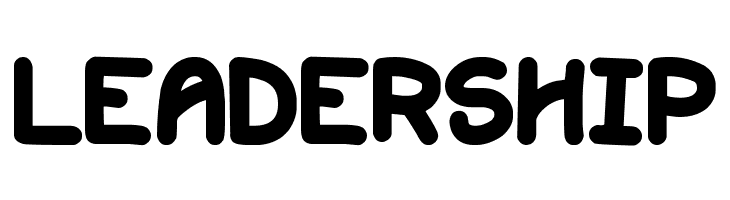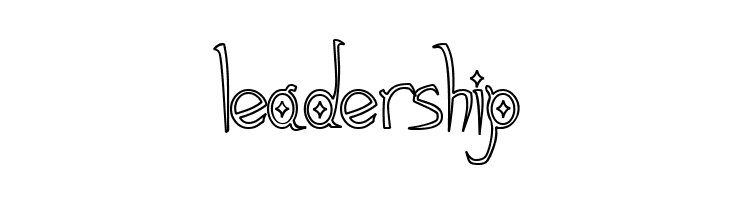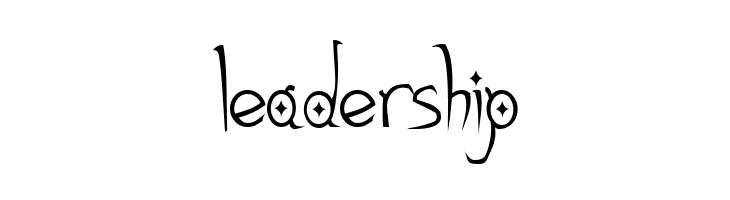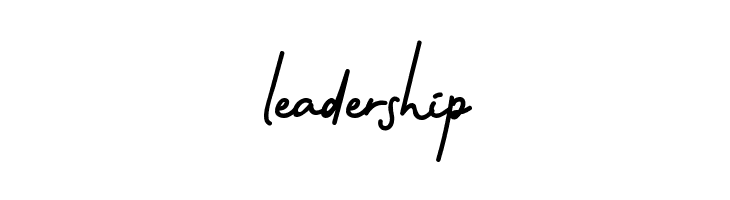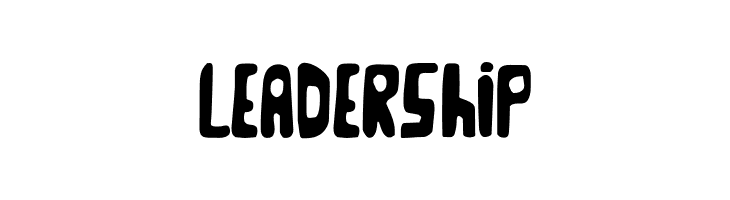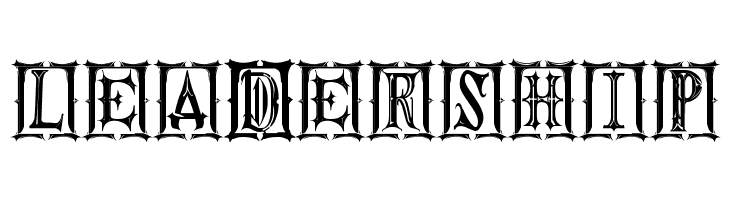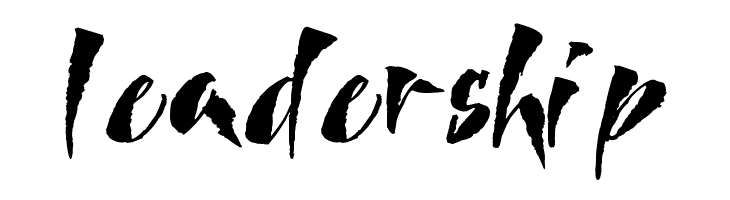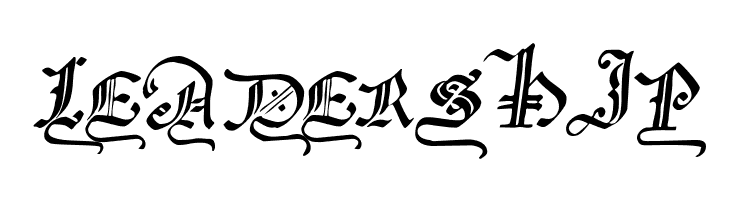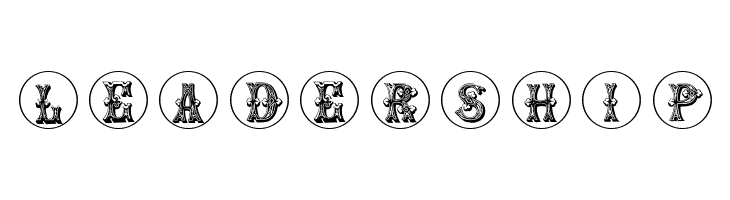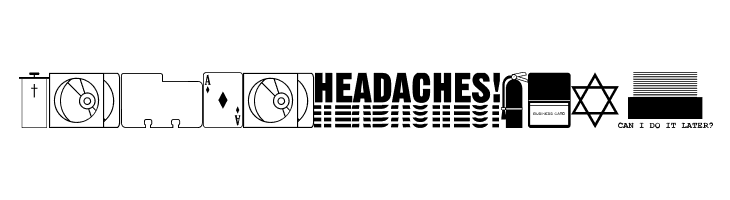
• Goodbye Crewel World NF
A decorative font with a cross-stitch pattern, evoking a handcrafted feel.
• GoodbyeCrewelWorldNF
A decorative font with a cross-stitch embroidery style.
• Goodfish
• Goodline-Free
A smooth, flowing script font with elegant, connected characters.
• GOODMORNINGPURPLE-free
A playful, bold handwritten font with rounded edges and a whimsical style.
• GoodOldEyeCatchers
A vintage, hand-drawn display font inspired by retro advertisements.
• GoodOldTimes
A whimsical, decorative font featuring nostalgic silhouette scenes.
• Goodwill
A modern sans-serif font with geometric shapes and uniform stroke width.
• Goombella
A bold, expressive brush-style font with dynamic, artistic strokes.
• Goose Neck Regular
• Gordita Fuerte St
A bold, playful font with rounded, thick letterforms and a friendly vibe.
• Gorluttish Free Font Regular
A dynamic and fluid script font with elegant, flowing letterforms.
• Goskha Free Regular
A bold, playful font with rounded, bubbly characters ideal for retro or whimsical designs.
• Got A Ding For You JL
A decorative font with whimsical, retro-inspired graphics and symbols.
• Got No Heart
• Goteru FREE
A bold, dynamic script font with a playful, handwritten style.
• Gothenstone
A playful and casual handwritten font with smooth, flowing letterforms.
• Gothic Birthday Cake
A Gothic-inspired decorative font with ornate, playful letterforms and high contrast.
• Gothic Hijinx
A whimsical and gothic-inspired font with playful, decorative elements.
• Gothic Hijinx Hollow
A whimsical, hollow font with decorative, gothic-inspired elements.
• Gothic Hijinx Rough
A bold, edgy font with jagged, hand-drawn characters and a playful, chaotic vibe.